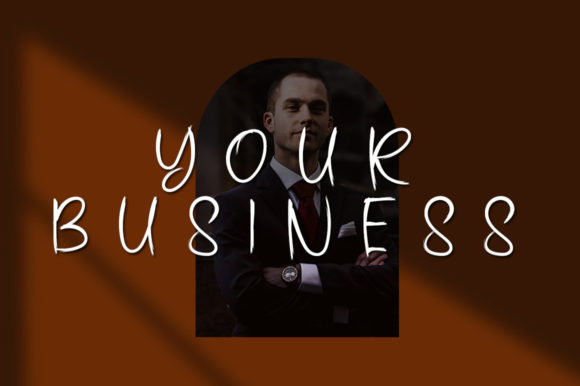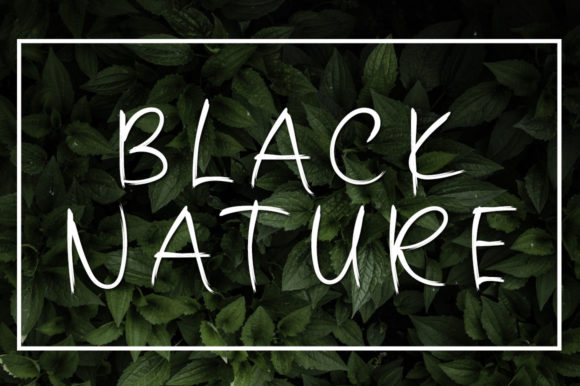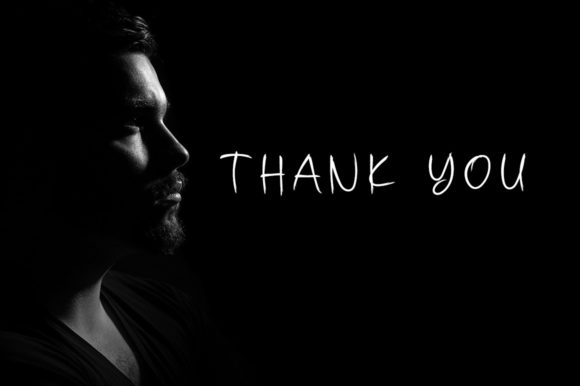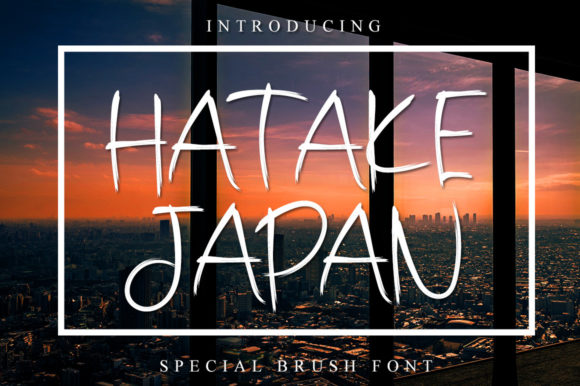
Discover the Beauty of Hatake Japan Font: Elevate Your Designs with Elegance
In the world of typography, fonts play a crucial role in conveying the tone and aesthetic of a design. For designers and crafters seeking a unique and captivating handwritten font, Hatake Japan is an exceptional choice. This beautiful font is fresh, clean, and elegant, making it perfect for a wide range of projects, from formal to informal. In this article, we’ll explore the features and benefits of Hatake Japan Font and how it can add a joyful touch to your designs.
The Unique Characteristics of Hatake Japan Font
Hatake Japan Font is a stunning handwritten font that boasts a distinctive and elegant style. Its clean lines, subtle curves, and balanced proportions make it a versatile font suitable for various design applications. The font’s uniqueness lies in its ability to convey a sense of freshness and joy, making it an excellent choice for designers looking to add a personal touch to their work.
Features of Hatake Japan Font
- Fresh and Clean Design: Hatake Japan Font features a crisp and clean design that is perfect for creating visually appealing designs.
- Elegant and Sophisticated: The font’s elegant style makes it suitable for formal and informal projects, including branding, packaging, and digital media.
- Handwritten Style: The font’s handwritten style adds a personal touch to designs, making them more relatable and engaging.
- Versatile: Hatake Japan Font can be used in a variety of design applications, including logos, headings, and body text.
Benefits of Using Hatake Japan Font
By incorporating Hatake Japan Font into your designs, you can experience several benefits, including:
- Enhanced Visual Appeal: The font’s unique style and elegance can elevate the visual appeal of your designs, making them more engaging and attention-grabbing.
- Increased Readability: The font’s clean lines and balanced proportions ensure excellent readability, making it easy for your audience to understand your message.
- Brand Differentiation: By using a unique and distinctive font like Hatake Japan, you can differentiate your brand from competitors and establish a strong visual identity.
- Time-Saving: With Hatake Japan Font, you can save time and effort in designing and refining your typography, allowing you to focus on other creative aspects of your project.
How to Use Hatake Japan Font in Your Designs
Hatake Japan Font can be used in a variety of design applications, including:
- Branding and Logo Design: Use Hatake Japan Font to create a unique and memorable logo that reflects your brand’s personality.
- Digital Media: Apply the font to your website, social media, or email marketing campaigns to add a touch of elegance and sophistication.
- Packaging Design: Use Hatake Japan Font to create eye-catching packaging designs that stand out on store shelves.
- Stationery and Print Materials: Add a personal touch to your business cards, letterheads, and brochures with Hatake Japan Font.
In conclusion, Hatake Japan Font is a beautiful and unique handwritten font that can elevate your designs with its elegance and freshness. With its clean lines, subtle curves, and balanced proportions, this font is perfect for a wide range of projects, from formal to informal. By incorporating Hatake Japan Font into your designs, you can enhance visual appeal, increase readability, and differentiate your brand from competitors. So why wait? Discover the beauty of Hatake Japan Font and take your designs to the next level.